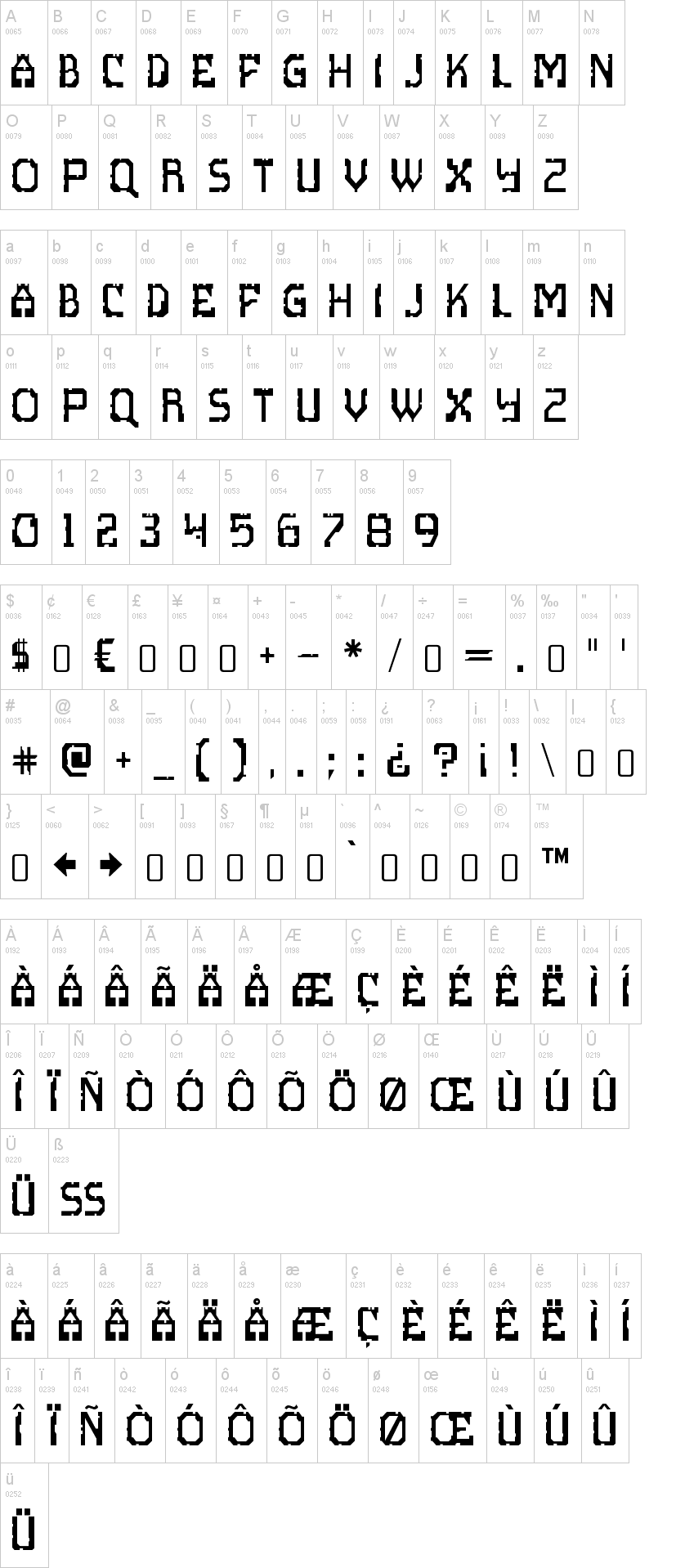
Шрифт Scritzy X
Scritzy X is an omnium-gatherum of robot parts, buttwelded into alphabetic form. Don't forget to read the files inside the zip for details. Updated in 2012.